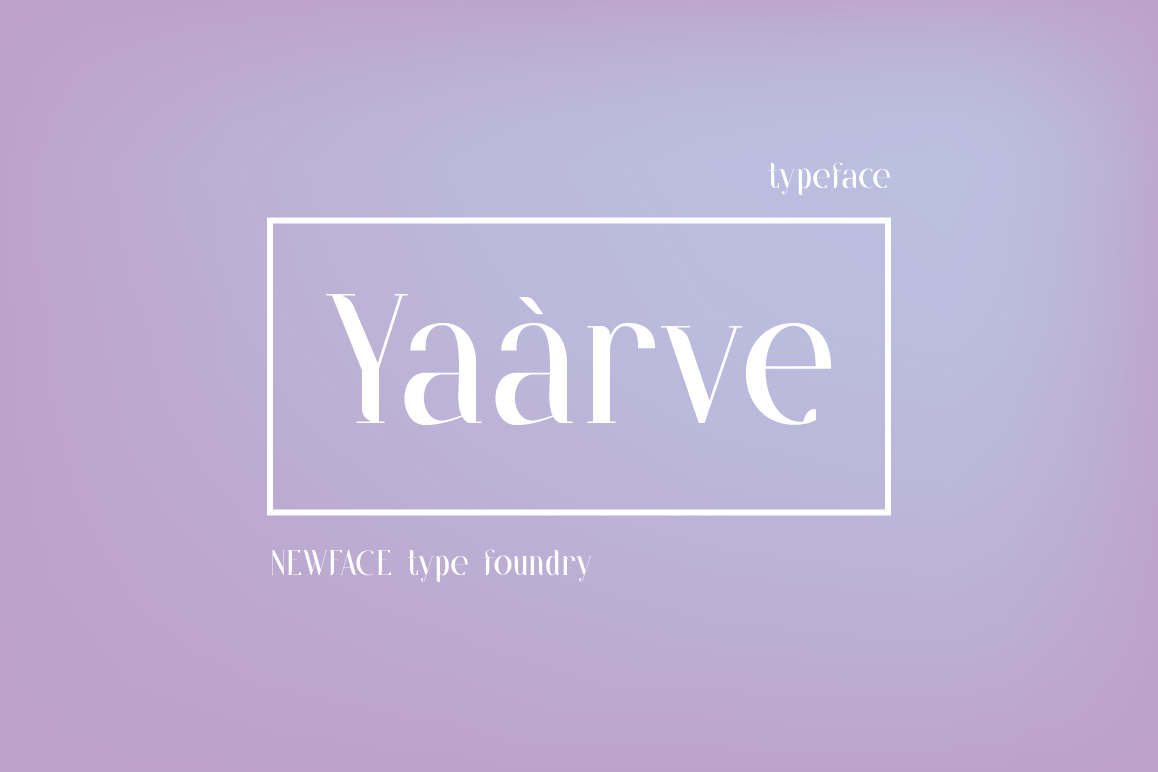
Yaarve
Introducing an exciting new font to your collection. Strong and expressive characters for a stylish design for printing and web design. It includes standard ligatures and kerning pairs 1500+. Latin alphabet and diacritics.